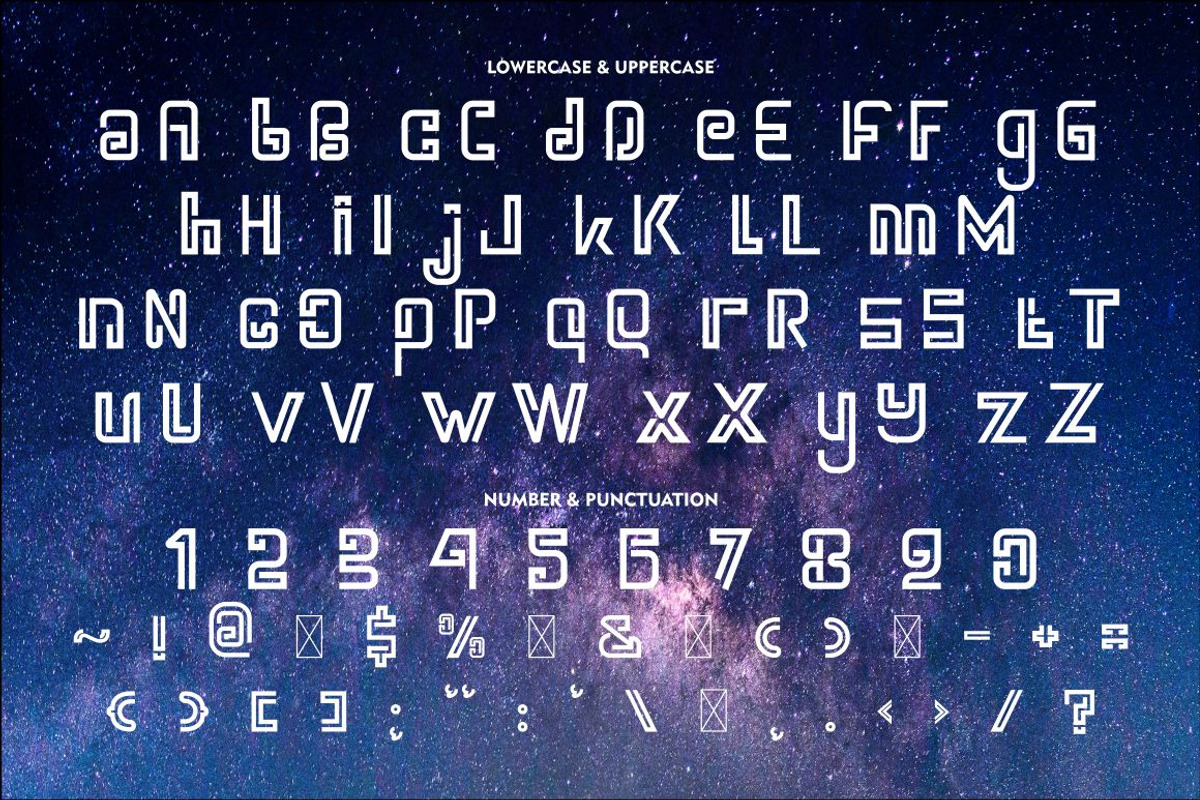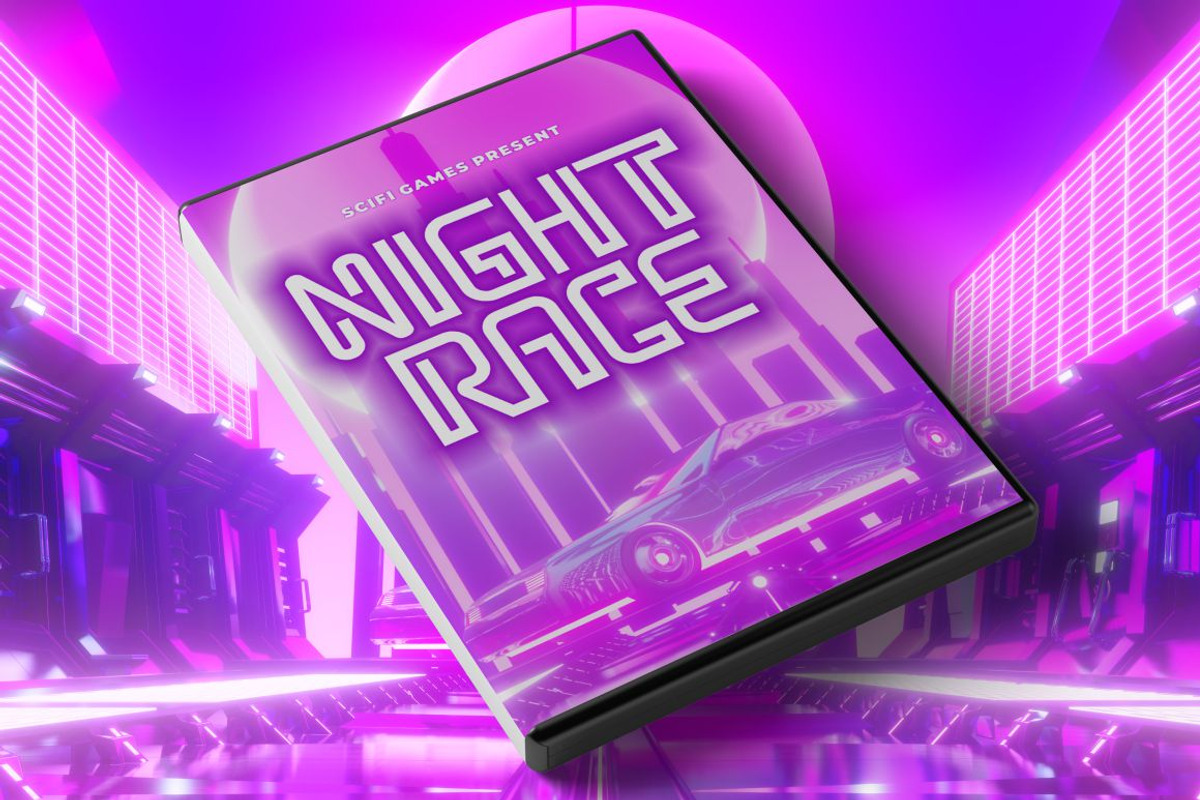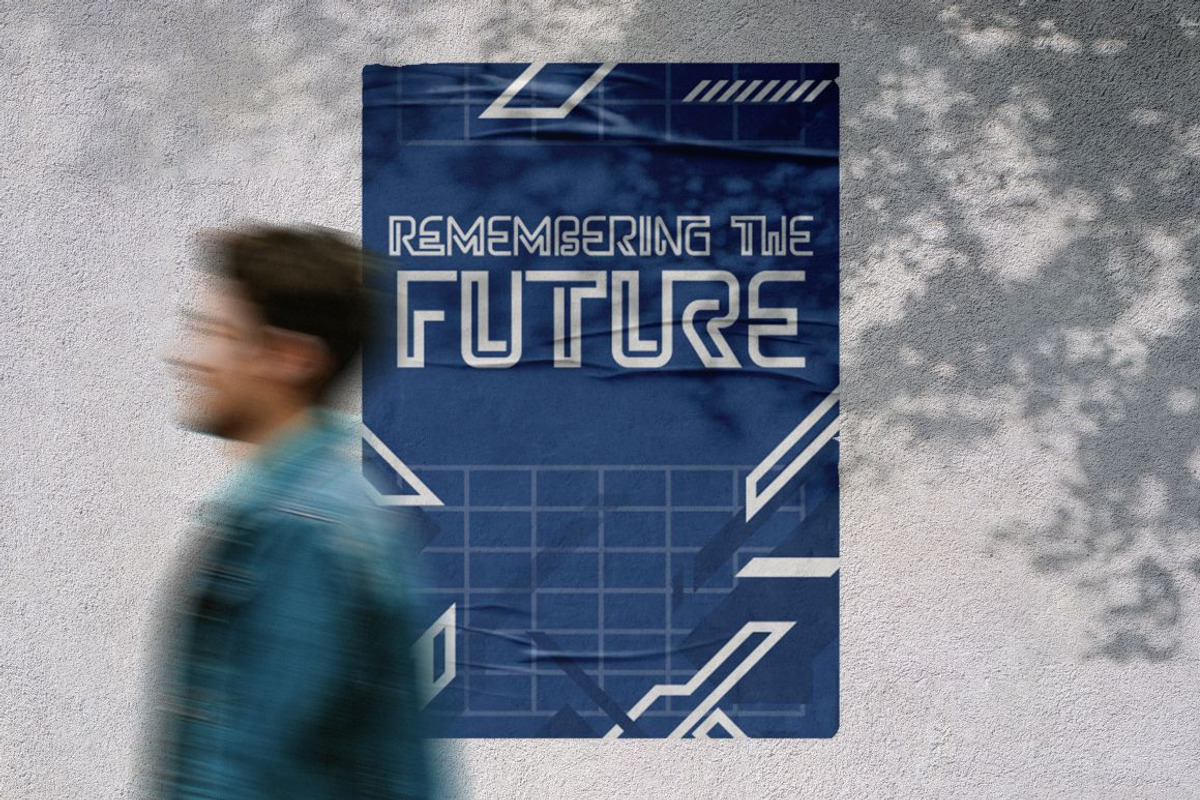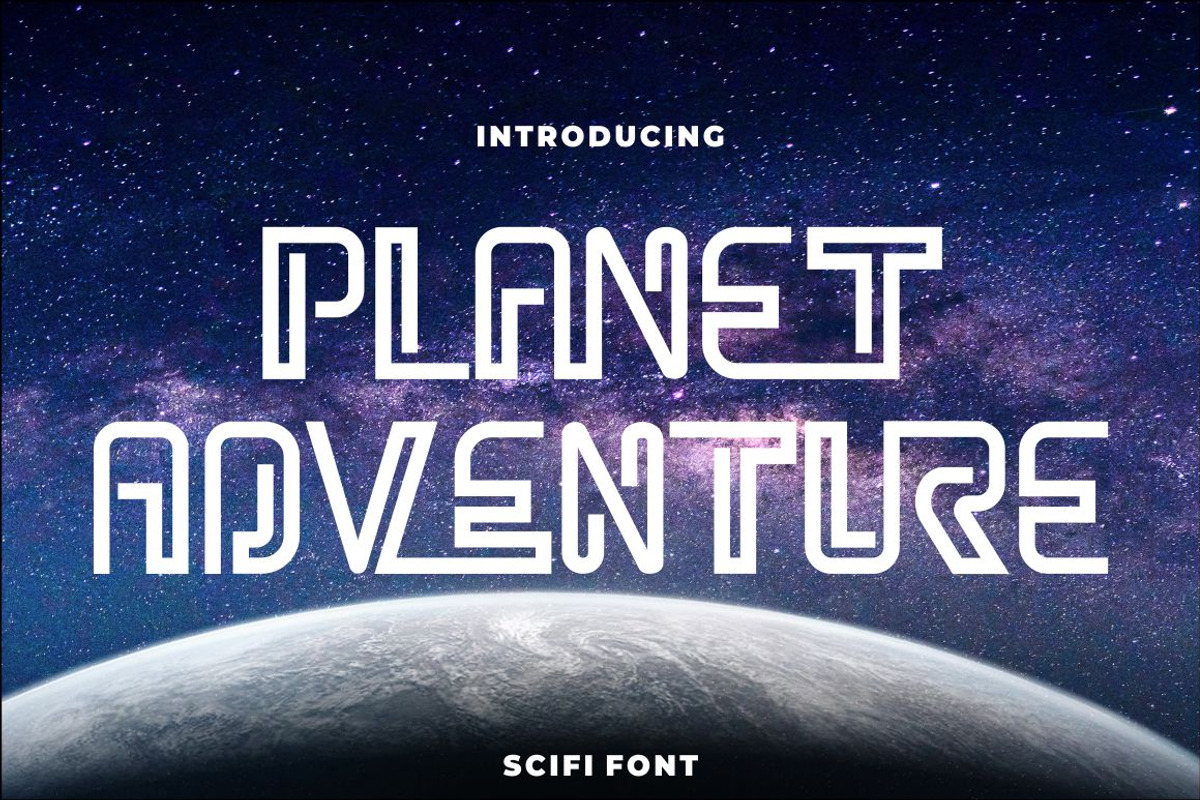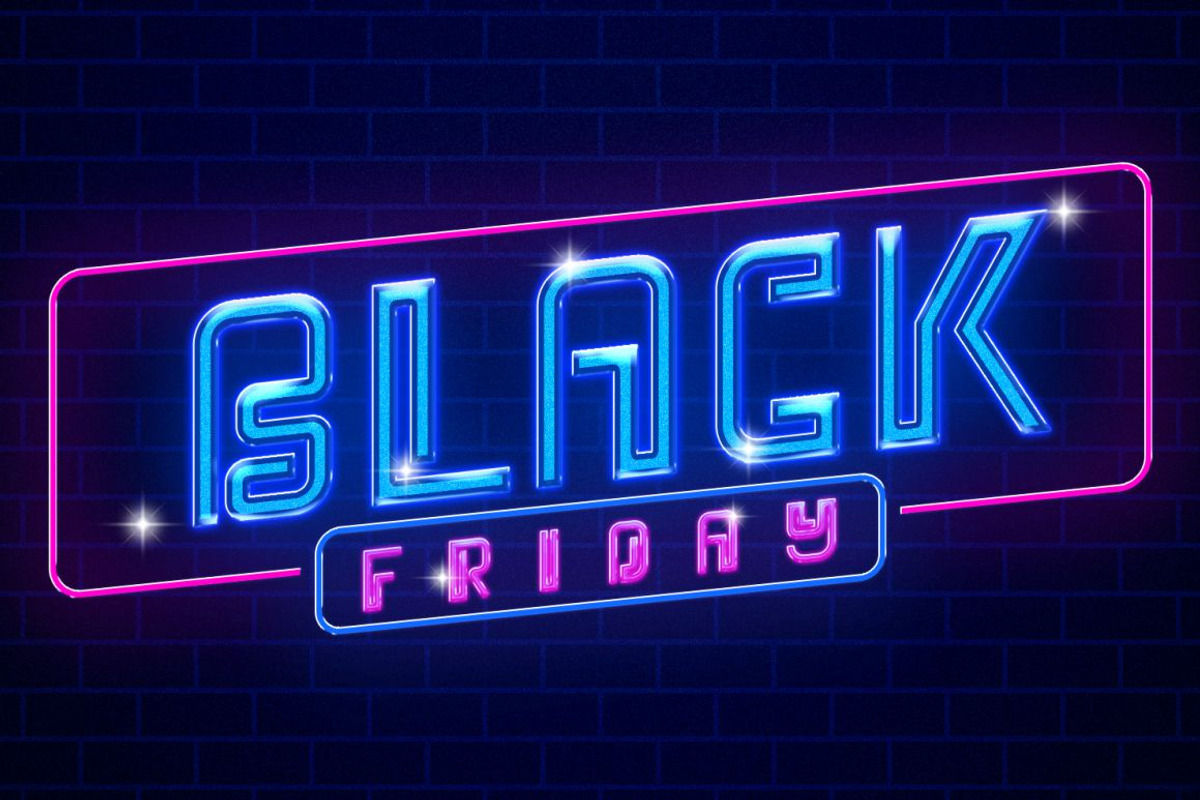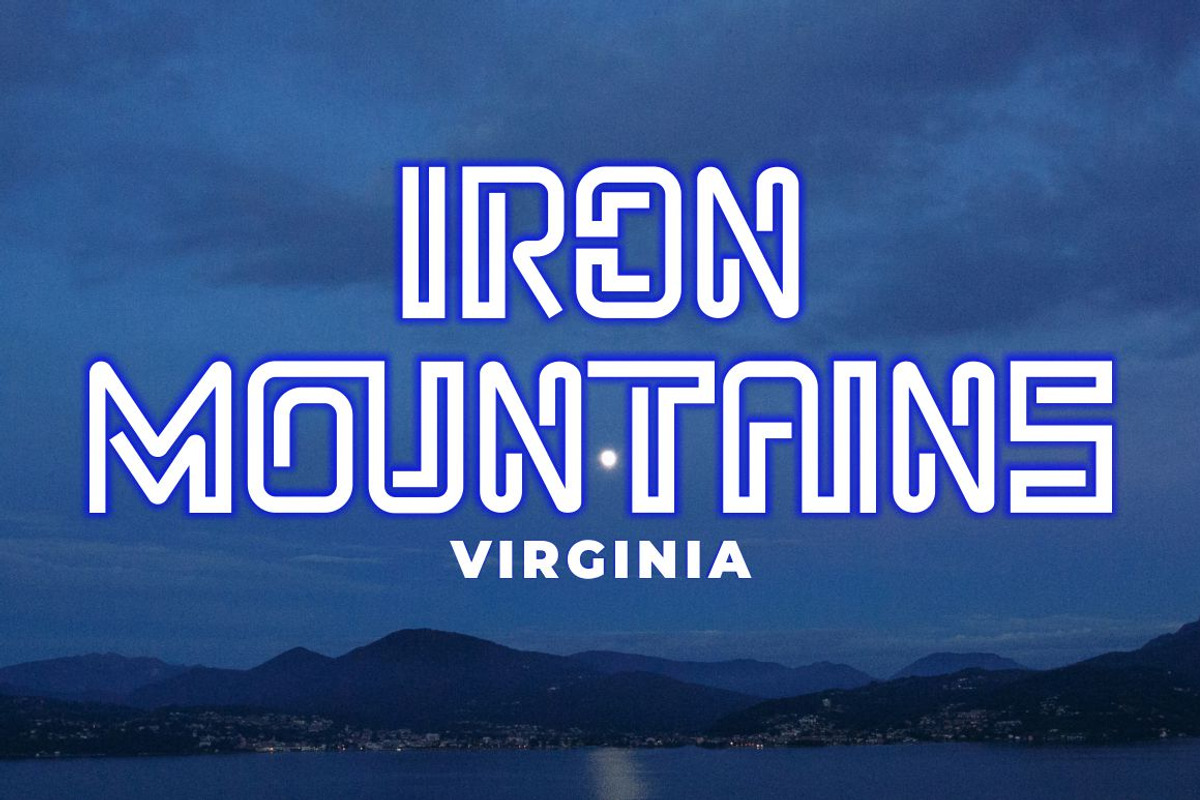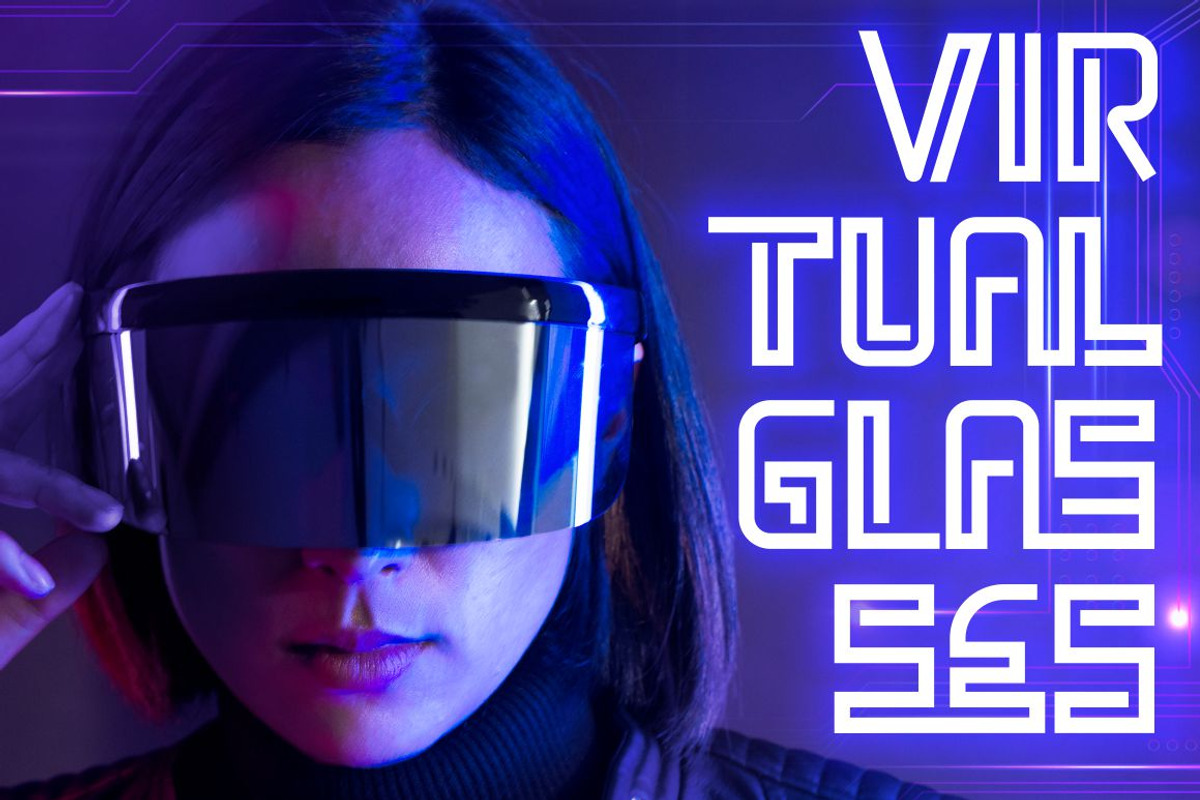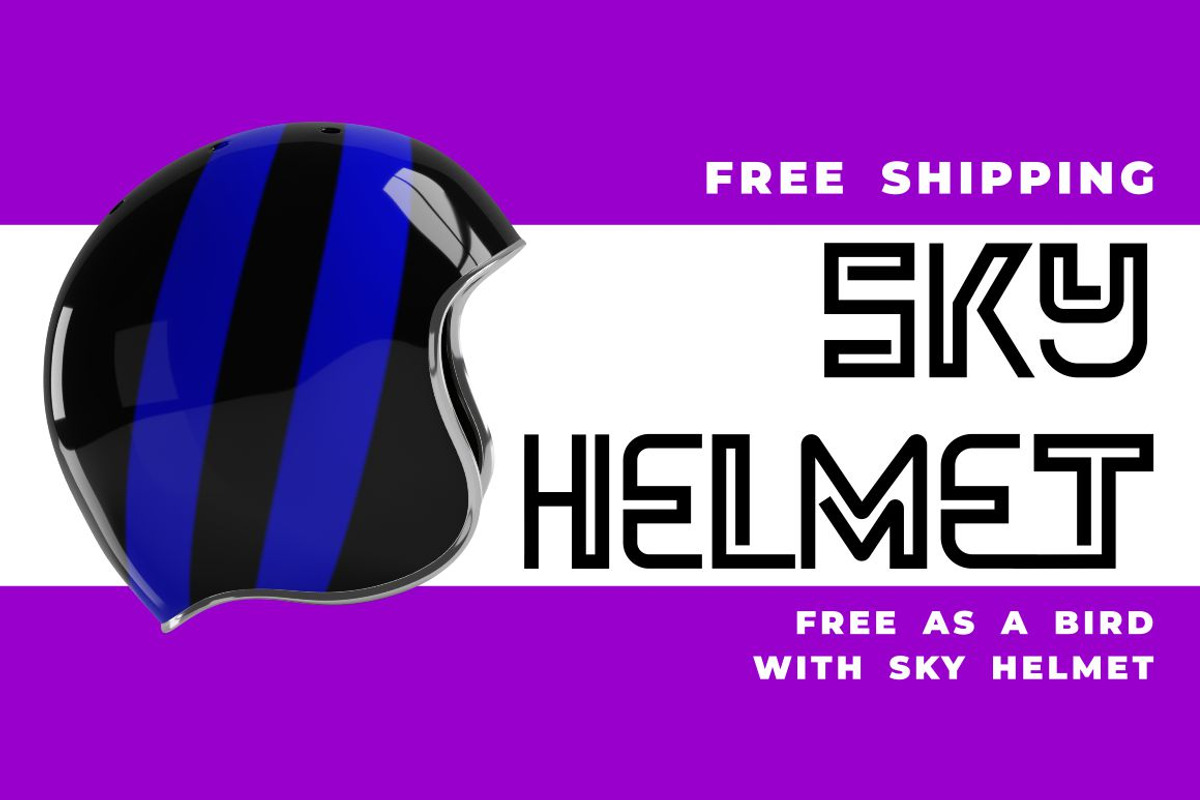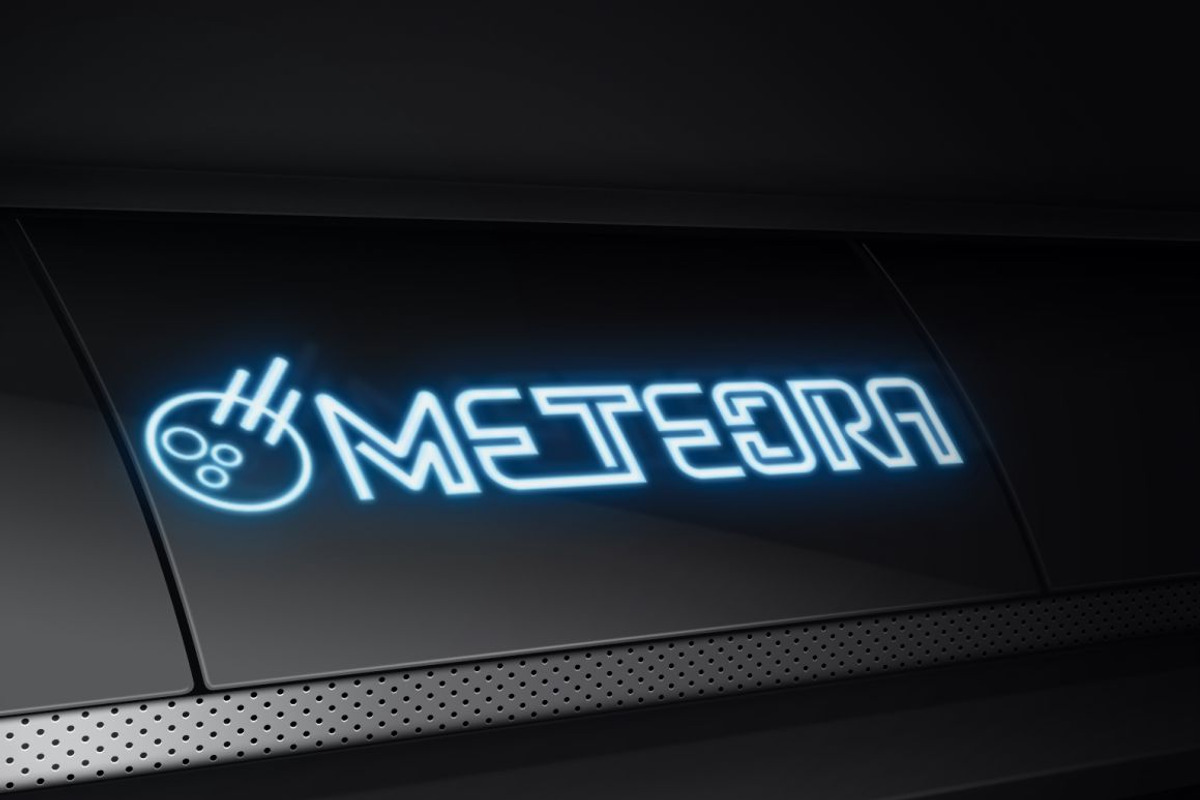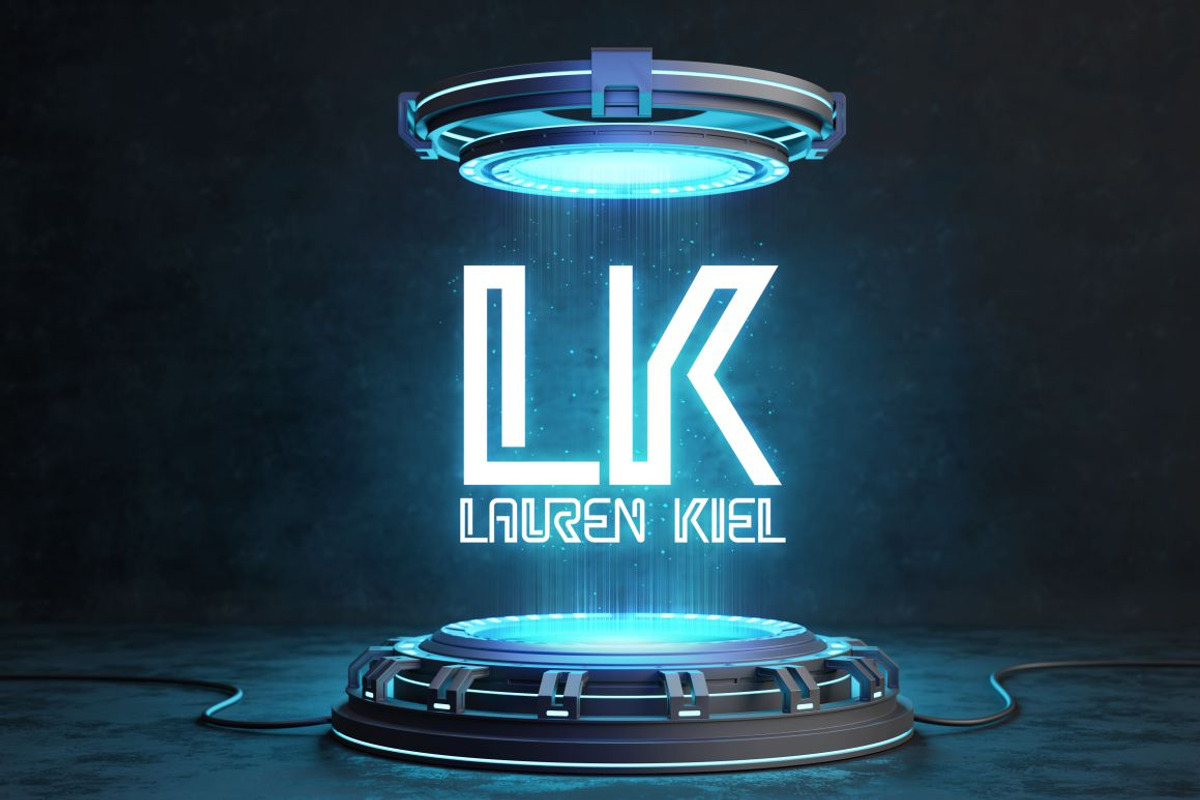
Planet Adventure - Scifi Font
PLANET ADVENTURE - SCIFI FONT
Introducing PLANET ADVENTURE - SCIFI FONT. This font is inspired by techno circuit boards, combined with the scifi font type. PLANET ADVENTURE is great for any kind of display purpose from logos, Tshirt, apparel, product packaging, tittle header, poster, merchandise, social media, labels, branding.